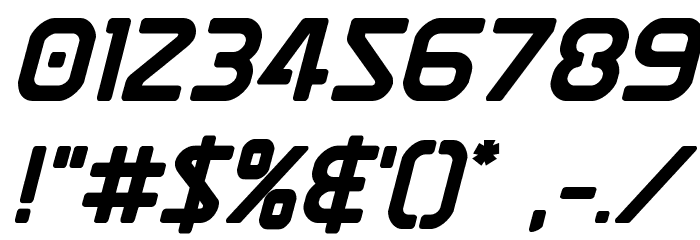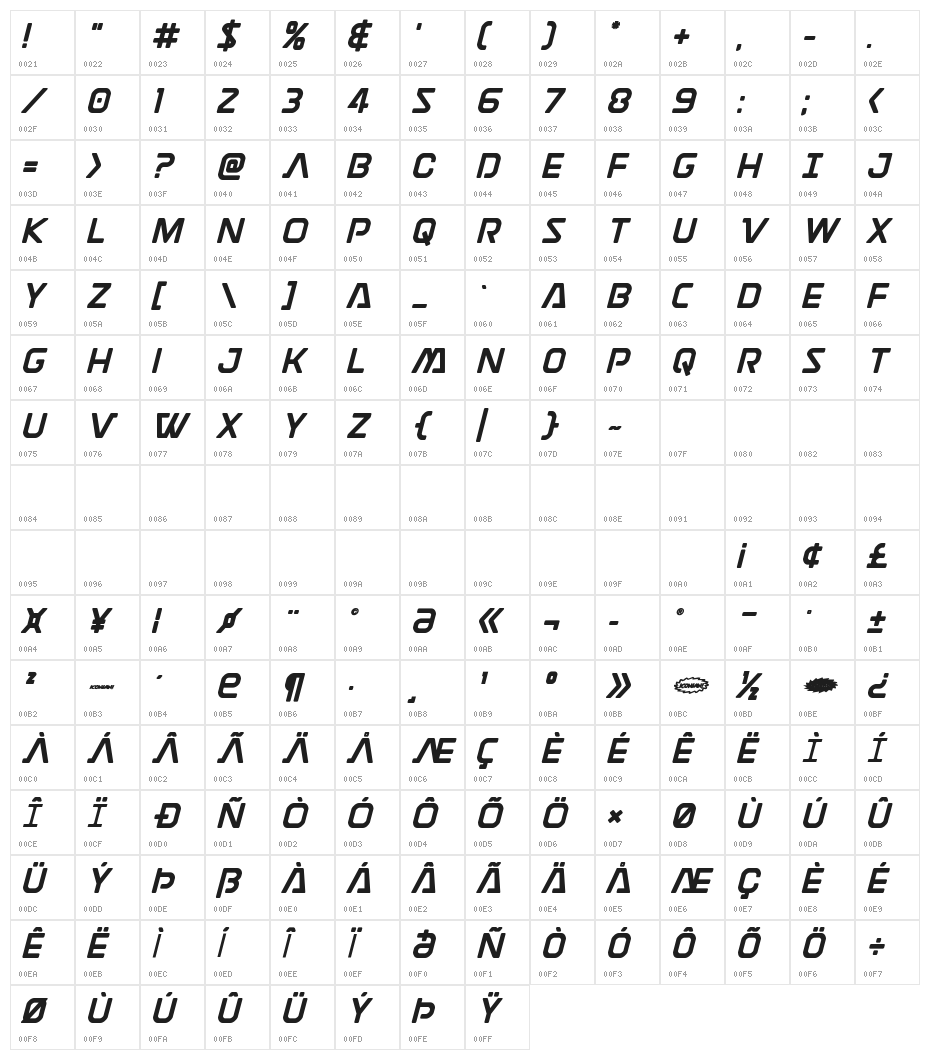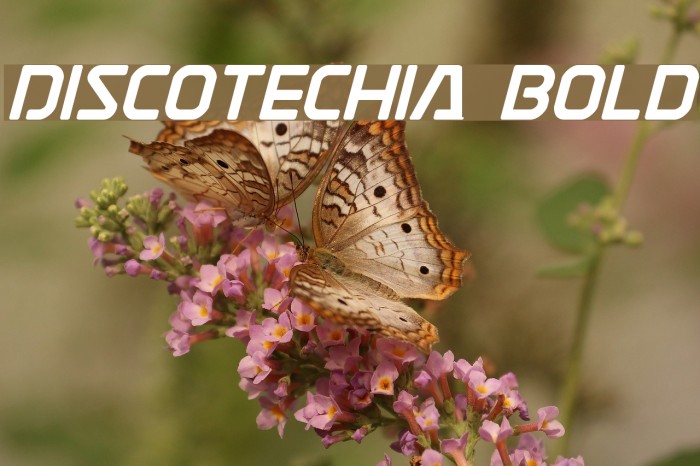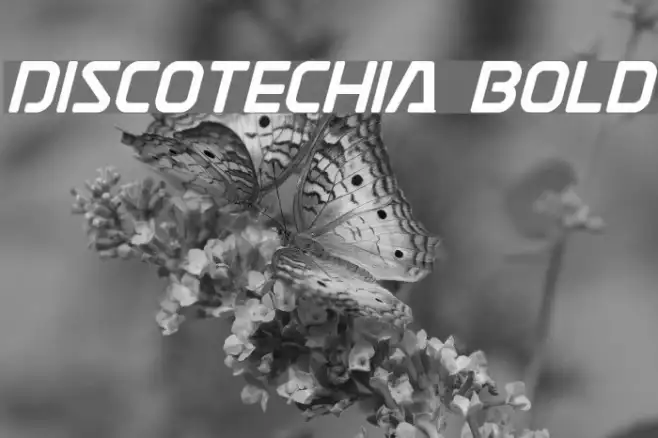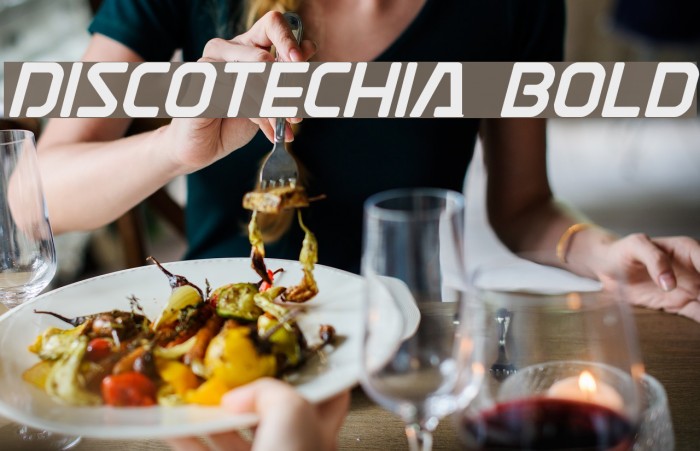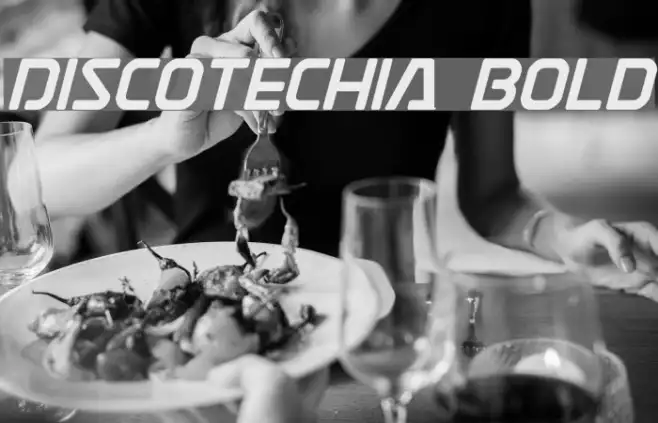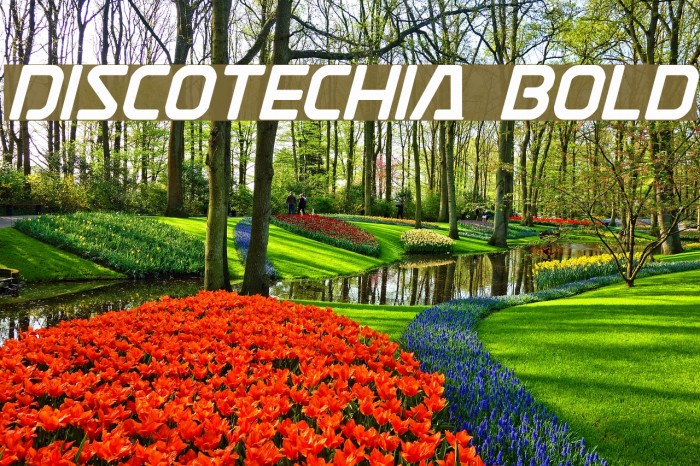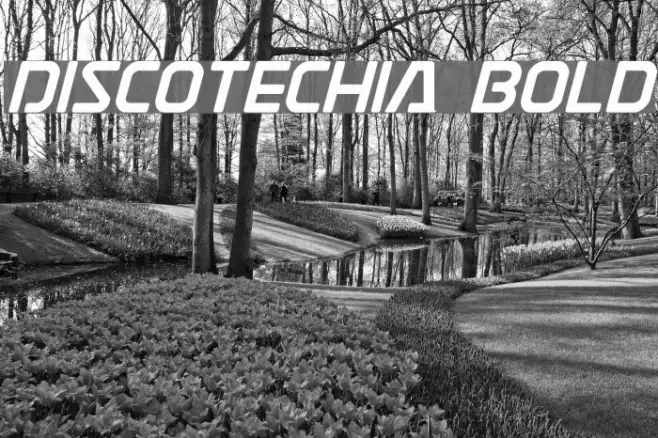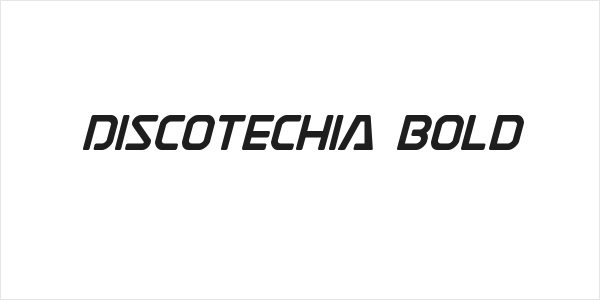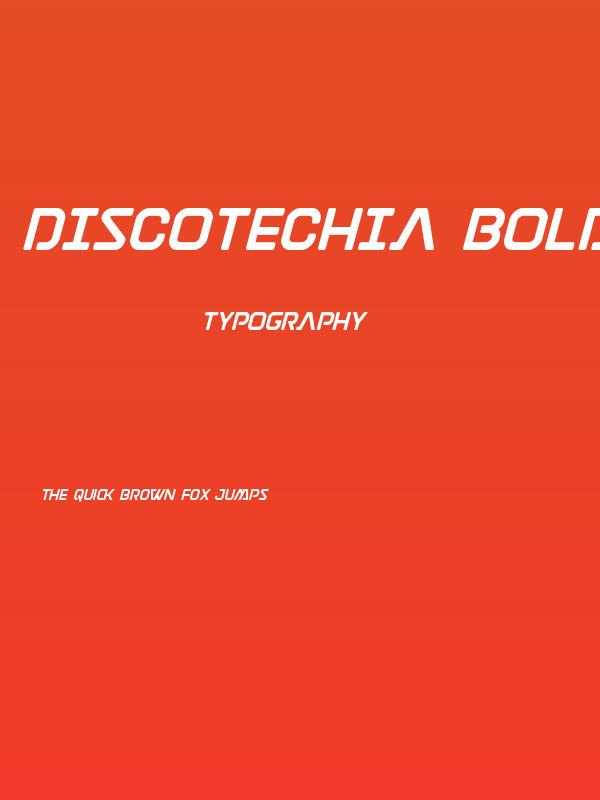
Discotechia Bold Font
Discotechia Bold Description
This font features a bold and dynamic style with a futuristic flair. The characters are slightly slanted, giving a sense of motion and energy. The strokes are thick and consistent, providing a strong visual impact. The geometric shapes of the letters are clean and modern, with rounded edges that soften the overall appearance. The numerals and special characters maintain the same boldness and style, ensuring uniformity across all elements. This font is ideal for projects that require a contemporary and energetic look, such as technology or entertainment branding.
| Use Case | Logos, Headlines |
| Proposed Projects | Ideal for technology branding, entertainment logos, and modern advertising. |